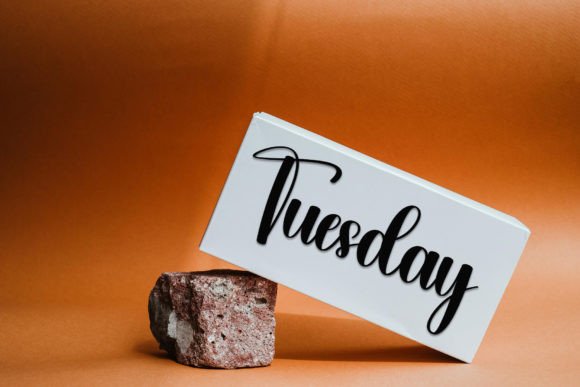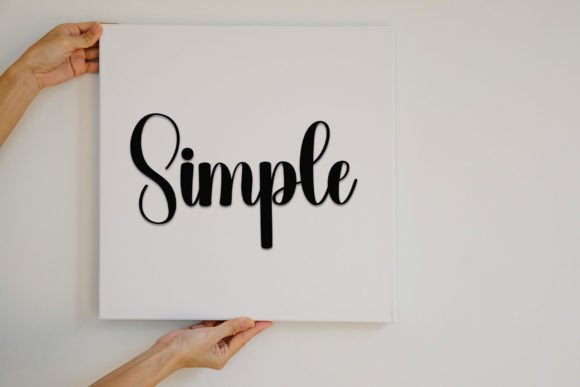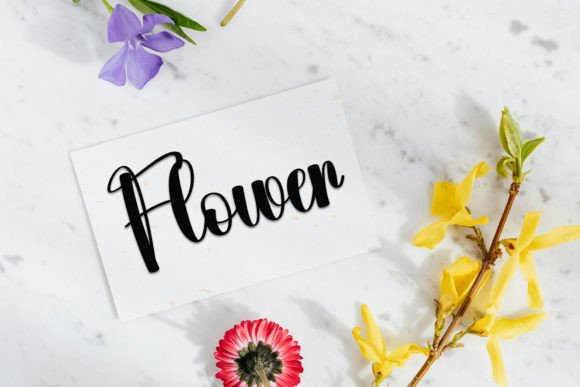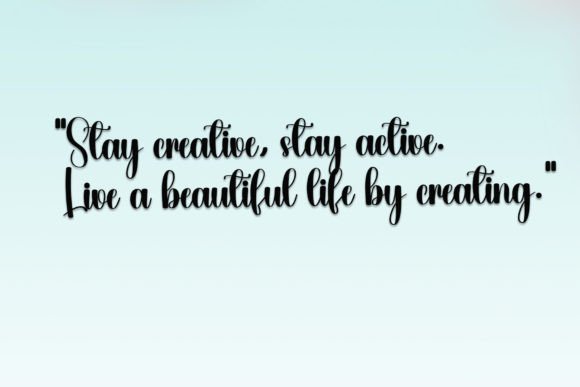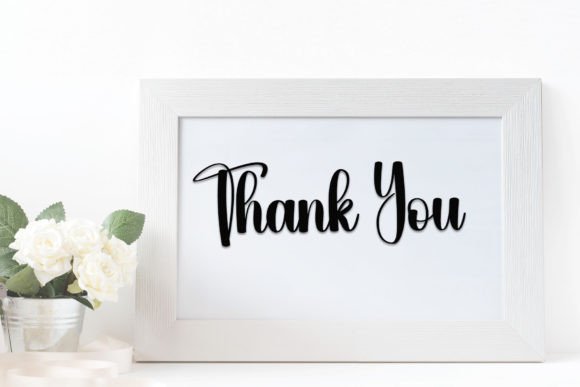
Introduction to Coloring Book Font
Coloring Book is a trendy handwritten font with a contemporary atmosphere and impeccable form, inspired by timeless classic calligraphy.
It will add elegance and class to any of your design projects .
Key Features of Coloring Book Font